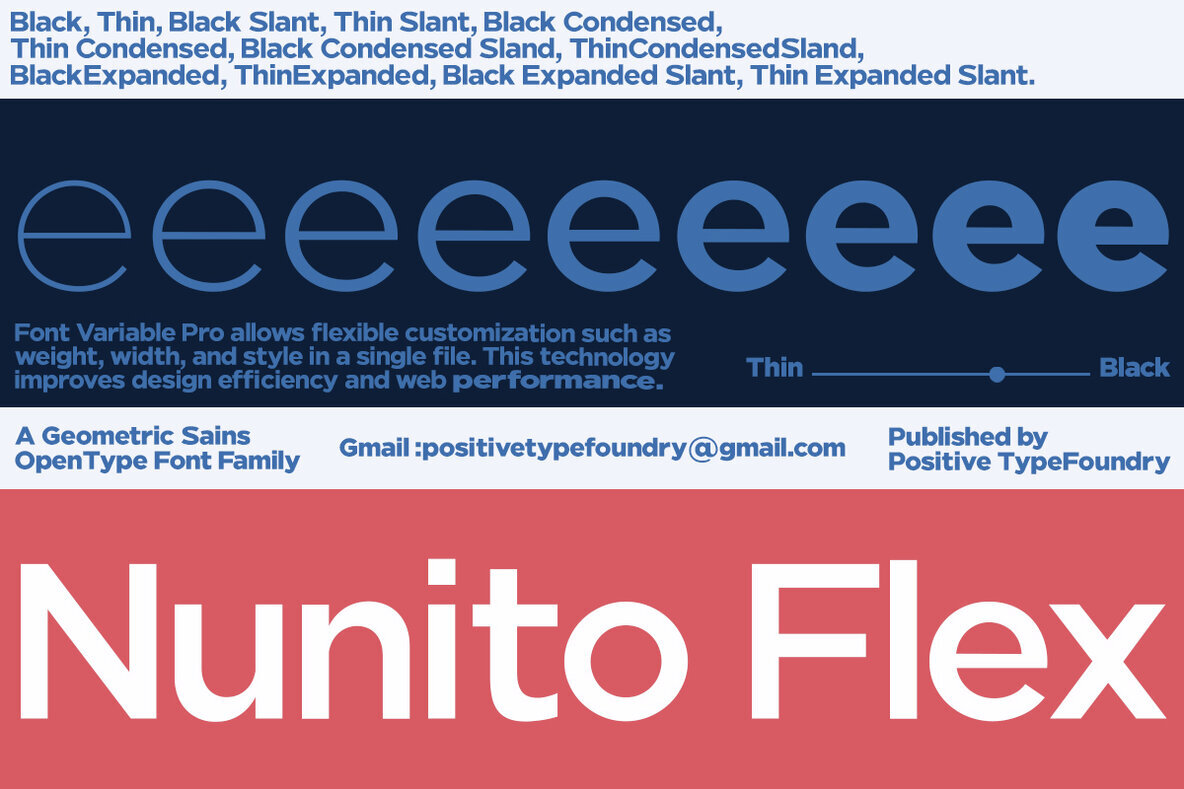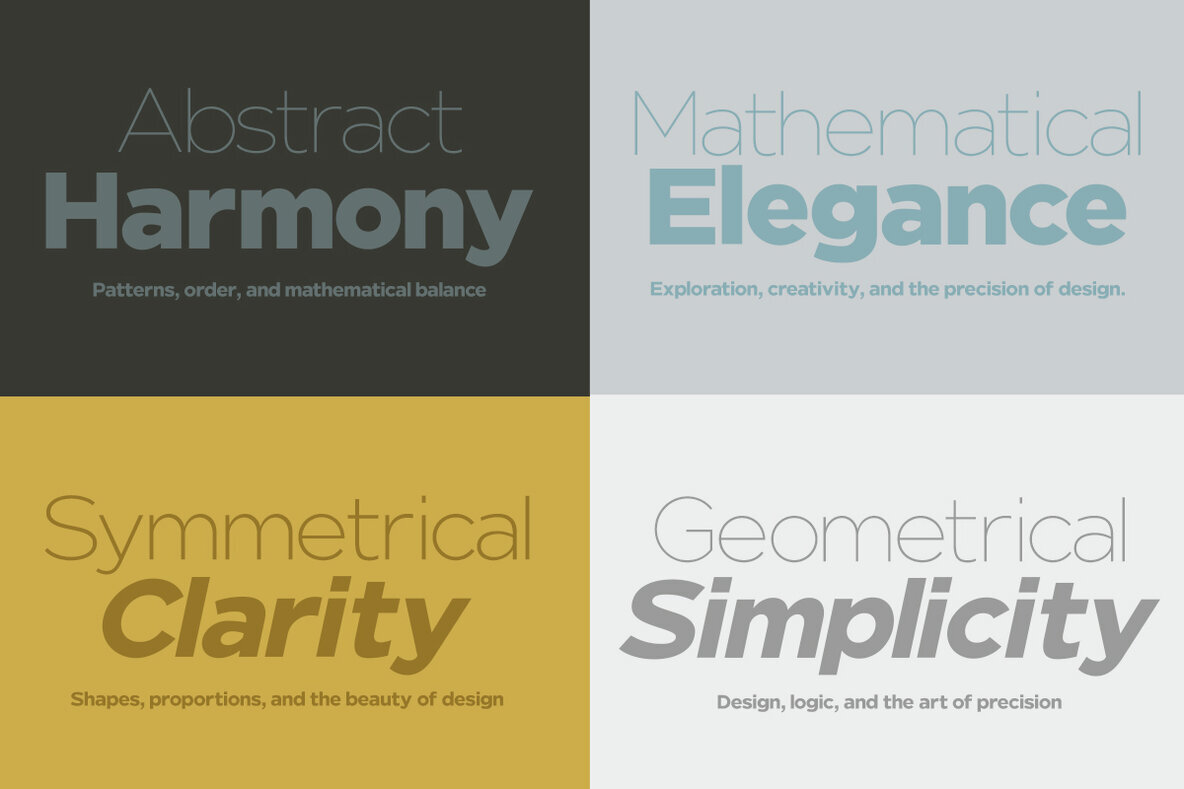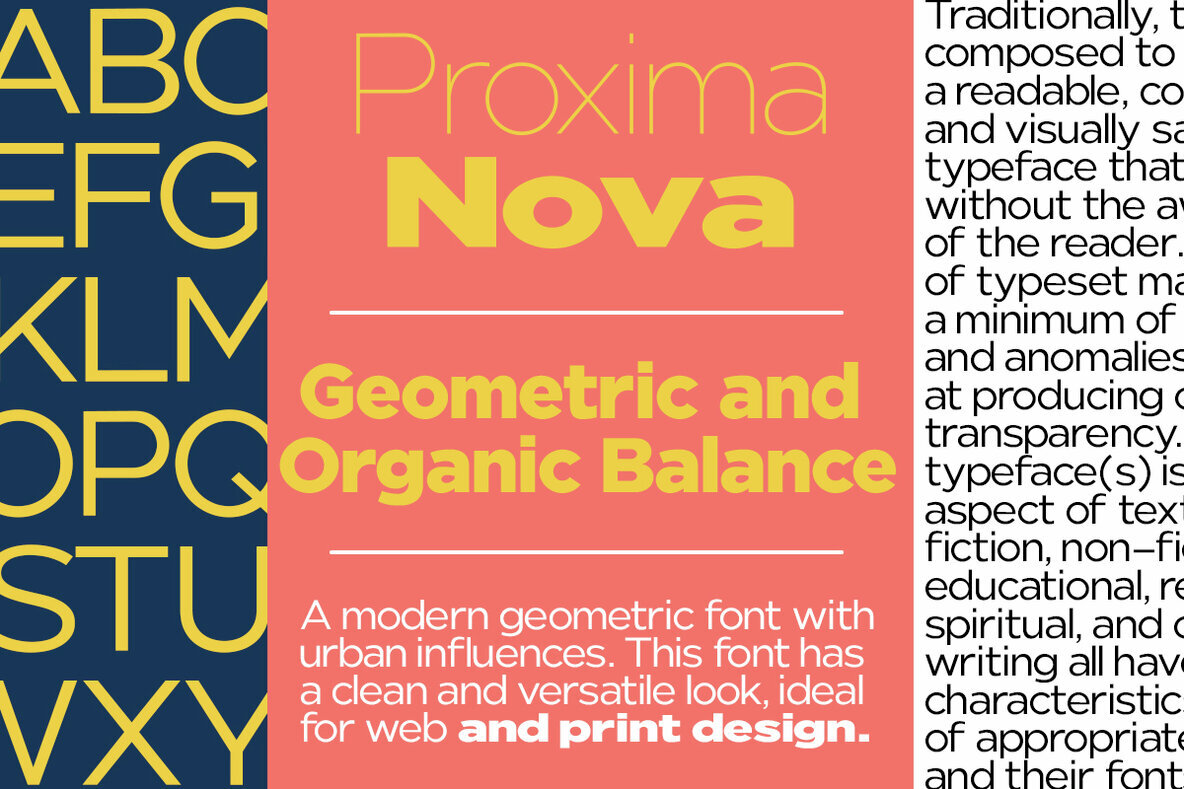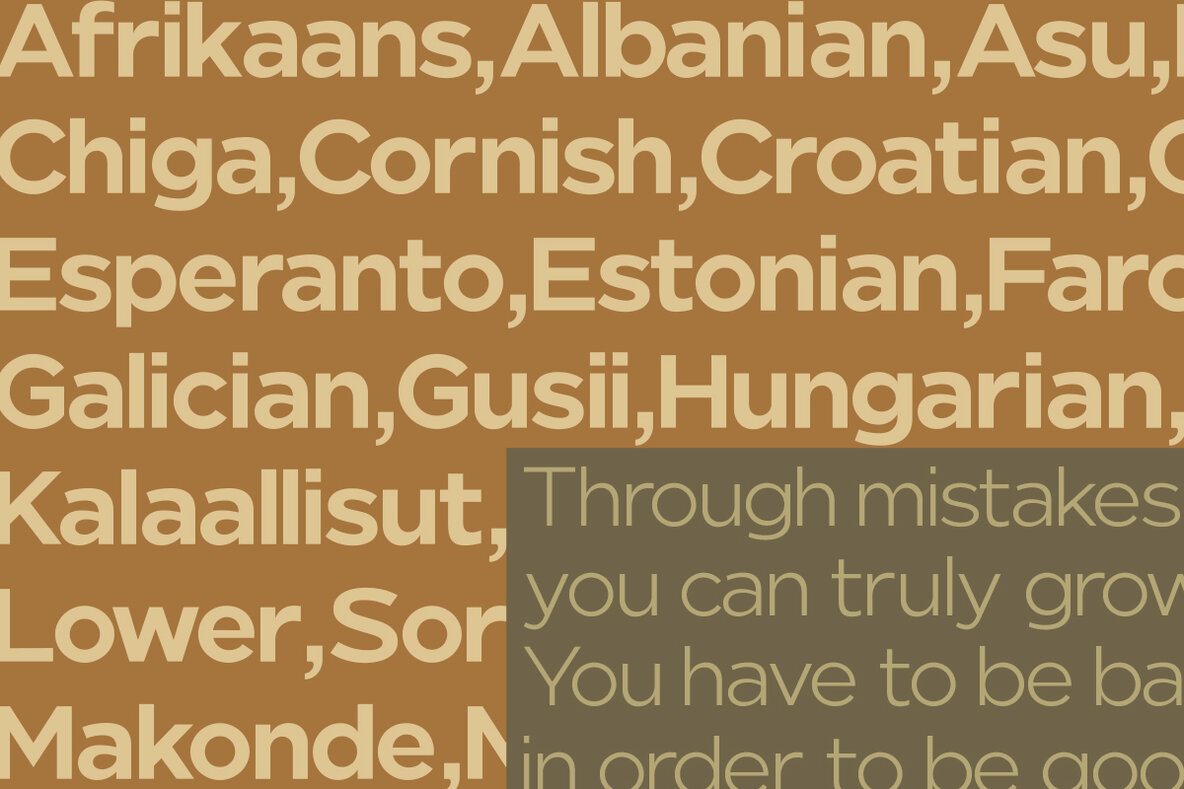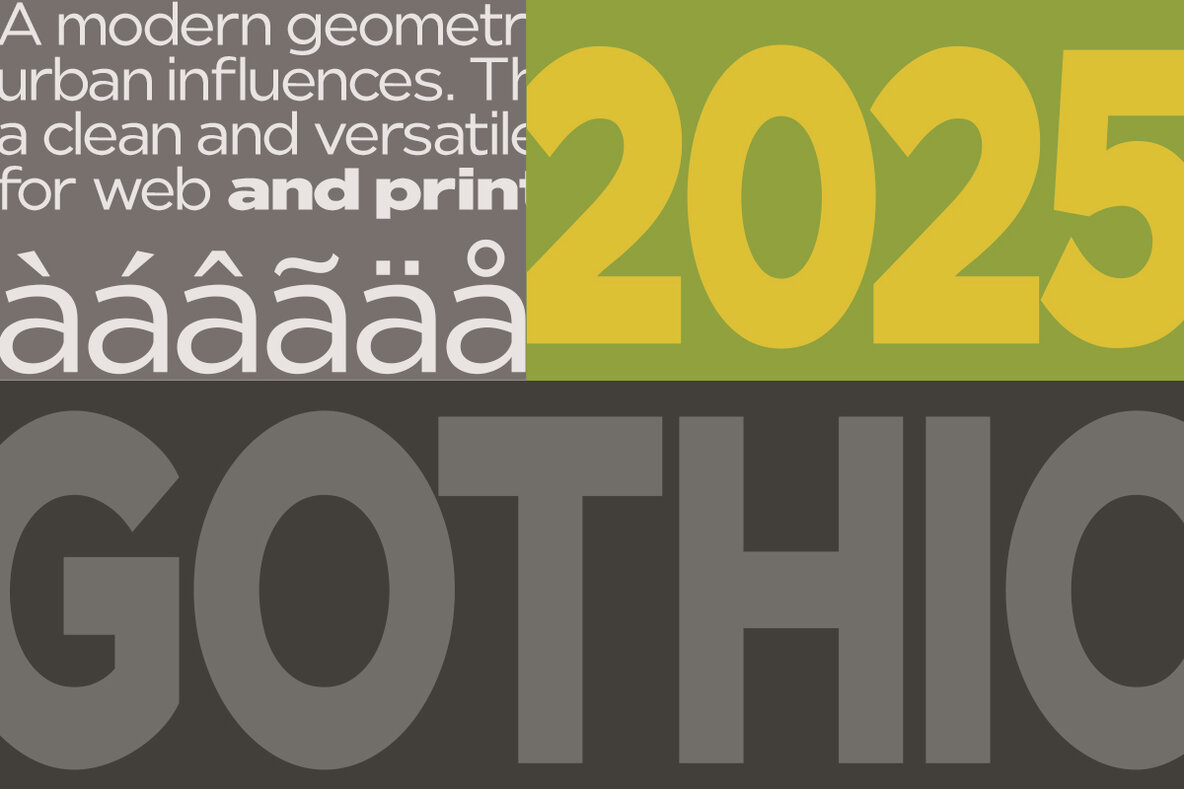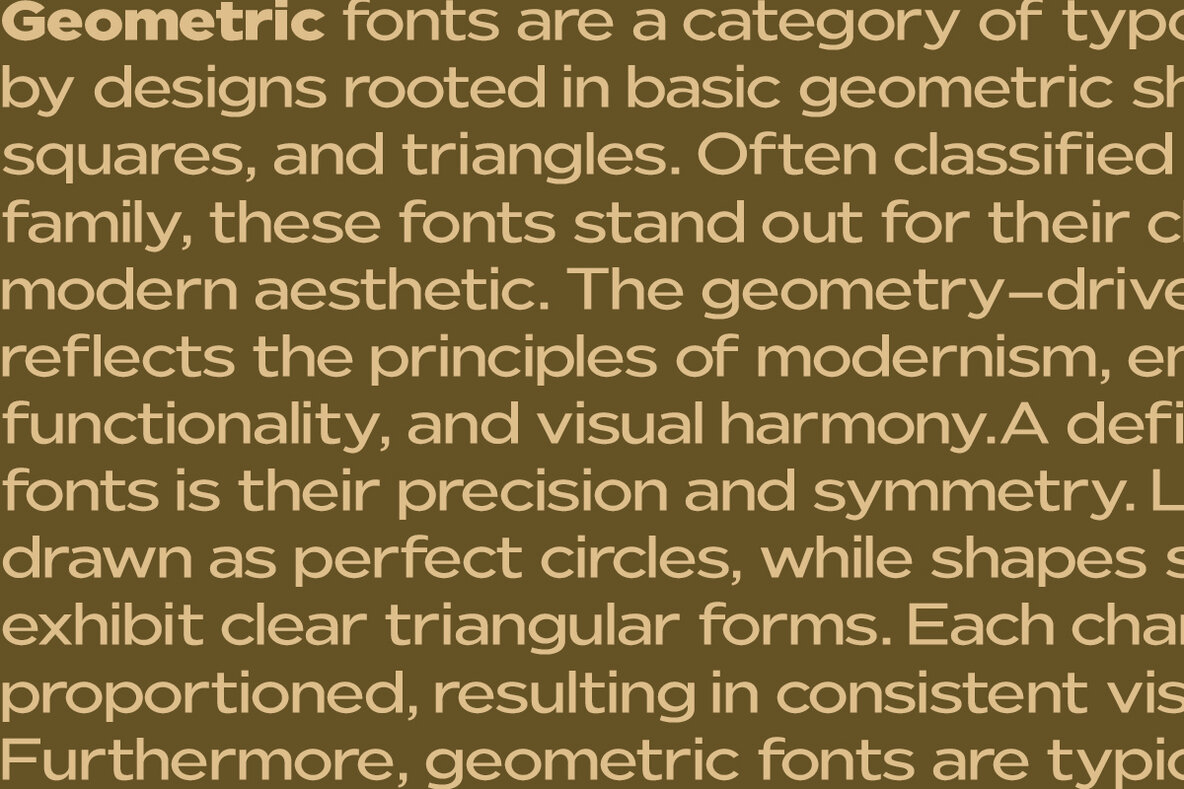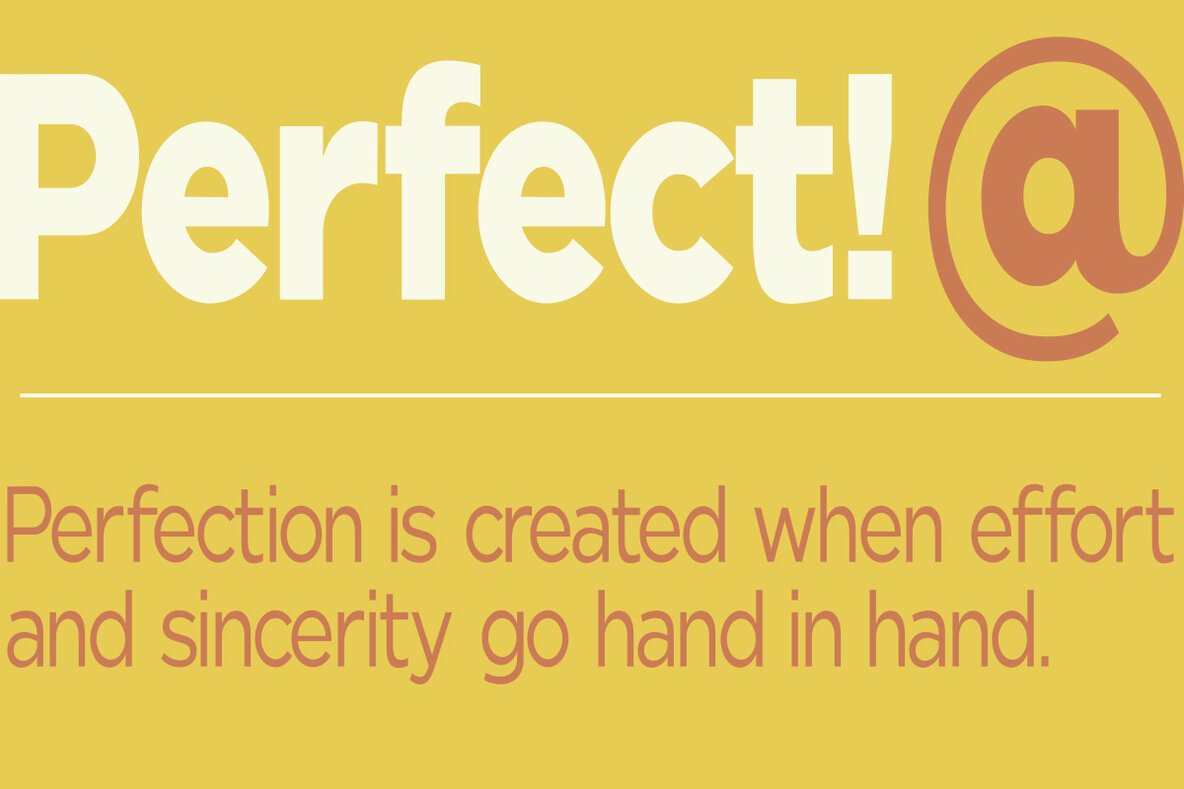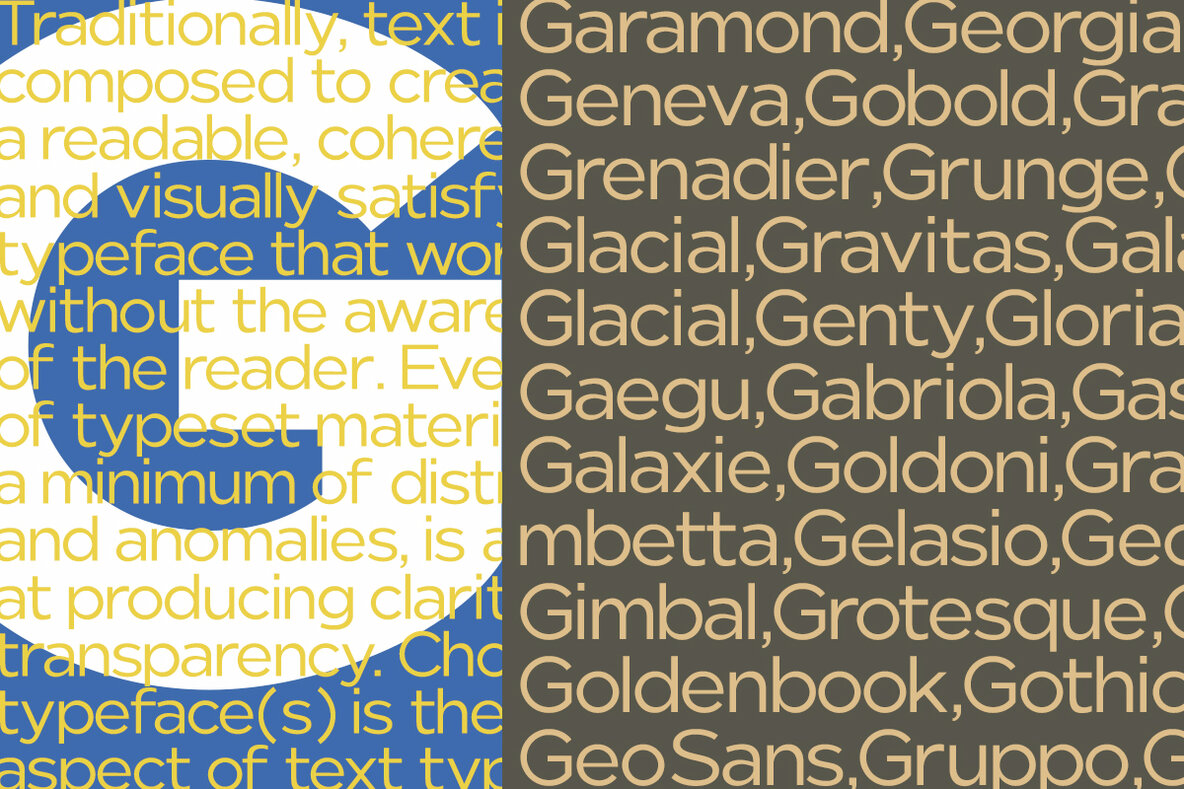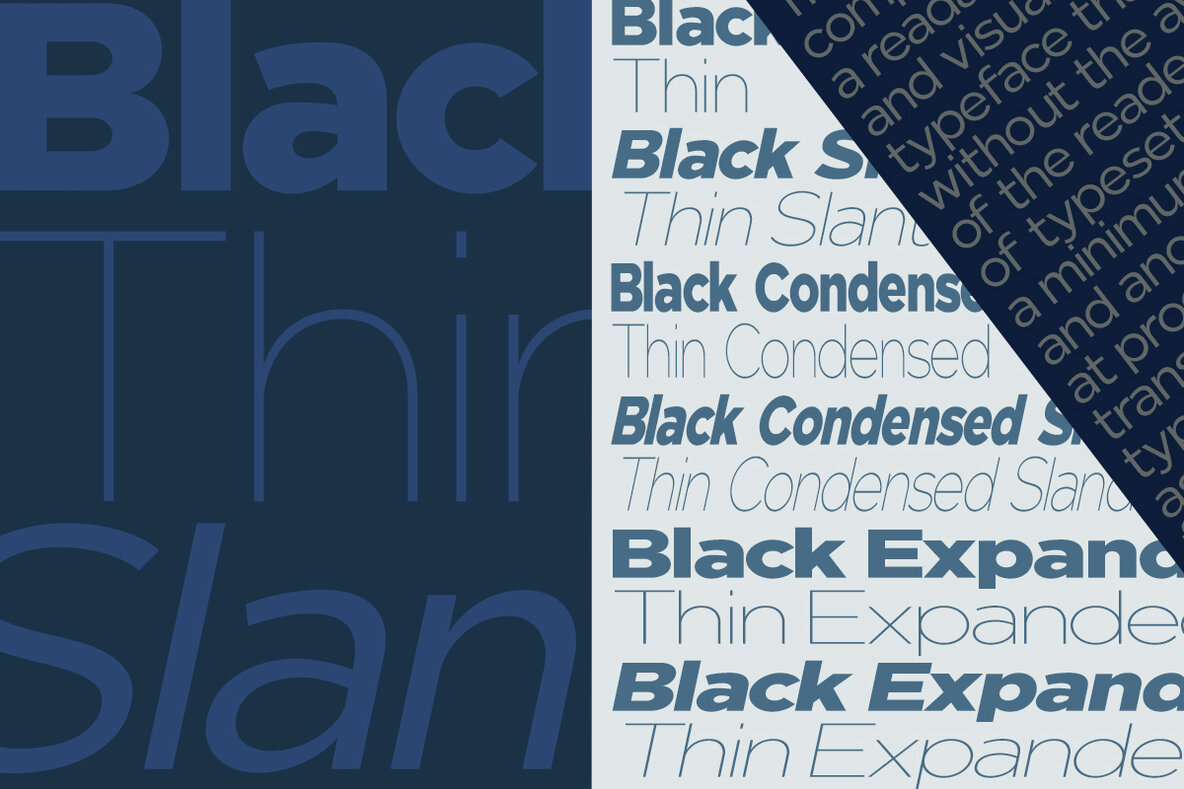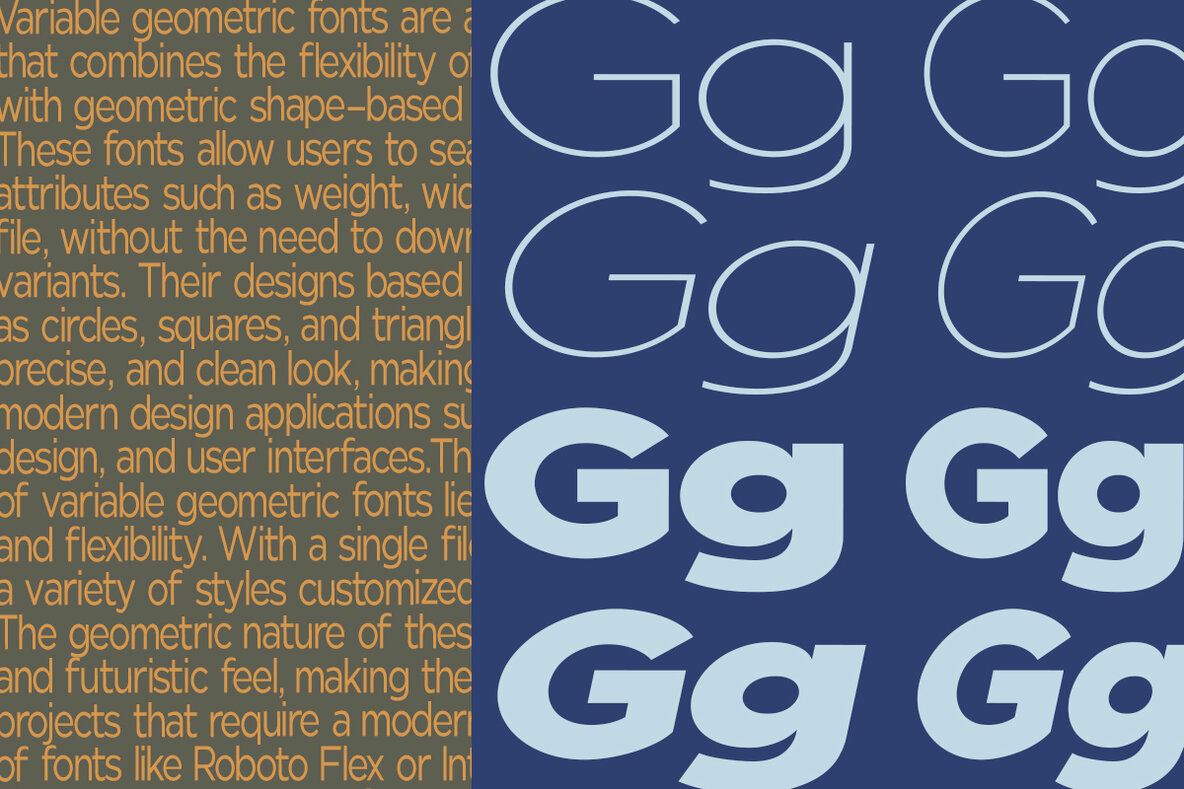
Nunito Flex Font
Nunito Flex Pro is a new take on a classic look—it’s the result of a project whose goal was to take a beautifully designed sans and update it so that its technical standards surpassed the status quo, leaving us with a truly superior sans family. This family isn’t just an update, it’s actually an expansion of the original concept that takes Nunito Flex’s design to the next level. In addition to the standard styles that range from Thin to Black, this collection of 54 fonts offers a compact look that rivals other sans on the market for readability on and off-screen at any size, alongside a heavy weight that would be a great look on its own and has the ability to pair well with so many contemporary serif body types. Overall, the design of this family is clean, straightforward, and works brilliantly for copy blocks and headlines. Nunito Flex Variables are font files that feature two axes, bold and width. They have preset swatches ranging from Thin to Black and Solid Width to Roman.